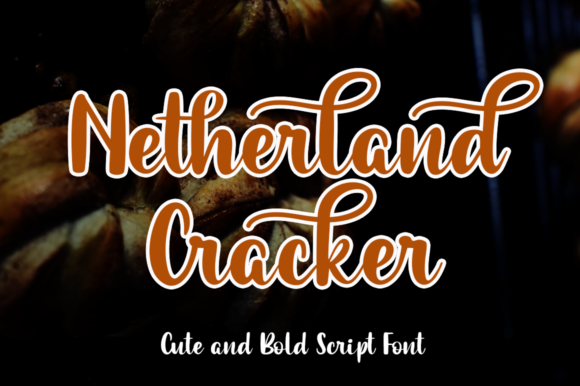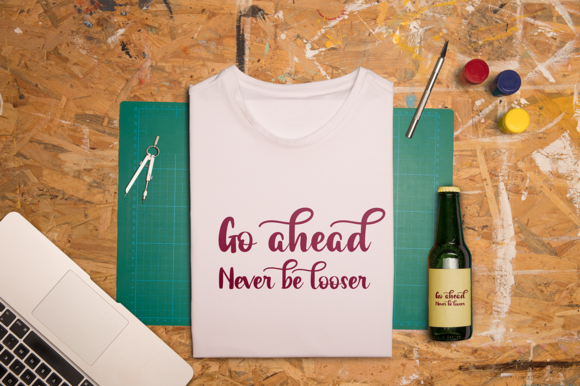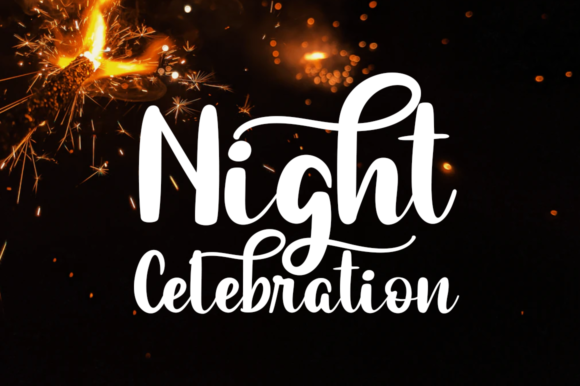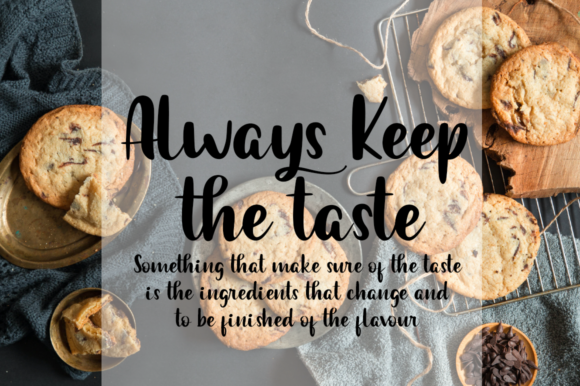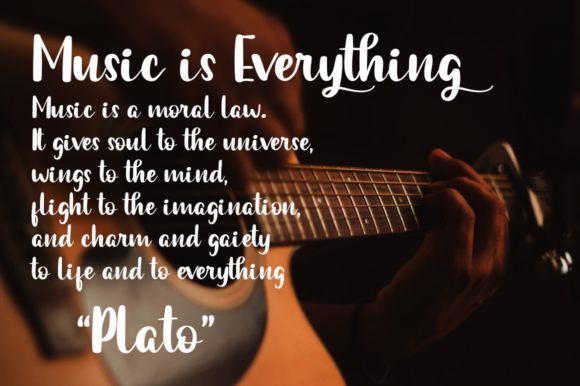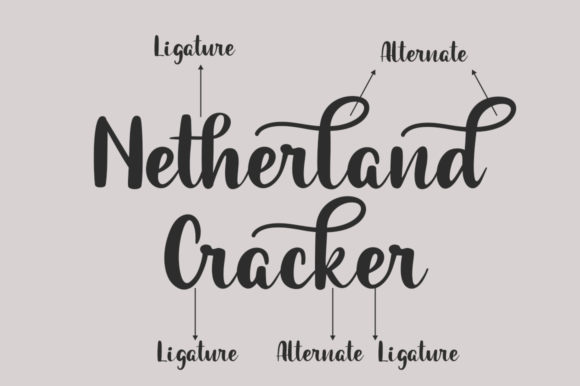
Netherland Cracker Font
About Netherland Cracker Font
Netherland Cracker feels equally charming and elegant. This stunning handwritten font is a stylish homage to classic calligraphy. It features a varying baseline, smooth lines, gorgeous glyphs and stunning alternates.